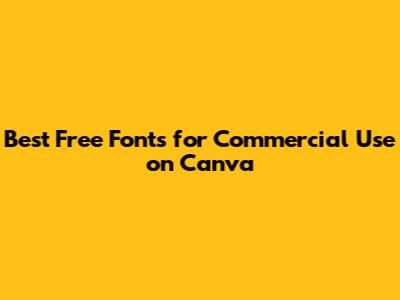
Best Free Fonts For Commercial Use On Canva
Choosing the right font is crucial for any design project, especially when it comes to commercial use. Using Canva, a popular online design platform, offers a plethora of fonts. However, not all of them are free for commercial purposes. This article will guide you through some of the best free fonts available on Canva that you can confidently use for your commercial projects.
Why Font Choice Matters
The font you choose plays a significant role in how your message is perceived. A professional and readable font can enhance your brand's credibility, while a poorly chosen font can make your design look amateurish. Consider your target audience and the overall tone of your project when selecting a font. A playful font might be perfect for a children's book, but it would be inappropriate for a corporate report. Typography is an art, and mastering it can greatly improve the impact of your designs. So, let's explore some fonts that not only look great but are also free for commercial use on Canva.
Top Free Fonts for Commercial Use on Canva
Canva offers a wide variety of fonts, but finding the ones that are both stylish and free for commercial use can take some time. Here are some of the best options, categorized for different design needs:
1. Headings and Titles
Montserrat
Montserrat is a versatile sans-serif font that works exceptionally well for headings and titles. Its clean and modern appearance makes it suitable for a wide range of projects, from websites to print materials. It's highly readable and comes in various weights, giving you plenty of flexibility in your designs. Montserrat is a go-to choice for many designers because of its simplicity and elegance.
• Why it works: Clean, modern, and highly readable.
• Best for: Headings, titles, and branding materials.
Oswald
Oswald is another excellent sans-serif font, designed with a slightly condensed style. This makes it perfect for headlines where space is limited. Its strong, bold characters command attention, ensuring your message stands out. Oswald is particularly effective for digital designs, such as website headers and social media graphics.
• Why it works: Bold, condensed, and attention-grabbing.
• Best for: Headlines, website headers, and social media graphics.
Bebas Neue
Bebas Neue is a popular choice for those seeking a tall and impactful sans-serif font. Its clean lines and modern feel make it ideal for posters, banners, and other large-format designs. While it's best used sparingly due to its strong presence, Bebas Neue can add a touch of sophistication to your projects.
• Why it works: Tall, clean, and modern.
• Best for: Posters, banners, and large-format designs.
2. Body Text
Open Sans
Open Sans is a classic sans-serif font known for its excellent readability. It's designed to be neutral and friendly, making it a great choice for body text in both digital and print formats. Its wide character spacing enhances readability, ensuring your audience can easily digest your content. Open Sans is a reliable and versatile option for any project requiring extensive text.
• Why it works: Highly readable, neutral, and friendly.
• Best for: Body text, website content, and print materials.
Lato
Lato is a sans-serif font with a warm and approachable feel. Its rounded terminals give it a softer appearance compared to more geometric fonts. Lato is highly legible and works well in a variety of sizes, making it suitable for both headings and body text. Its versatility and readability make it a popular choice among designers.
• Why it works: Warm, approachable, and highly legible.
• Best for: Body text, headings, and versatile design projects.
Raleway
Raleway is an elegant sans-serif font that exudes sophistication. Its thin and refined lines make it a great choice for projects that require a touch of class. While it can be used for headings, Raleway also works well for body text, especially in designs where aesthetics are paramount. This font can elevate the look of your project with its stylish appearance.
• Why it works: Elegant, sophisticated, and refined.
• Best for: Body text, headings, and aesthetic-focused designs.
3. Display Fonts
Lobster
Lobster is a bold and distinctive script font that adds a touch of vintage charm to your designs. Its flowing lines and unique character shapes make it perfect for logos, posters, and other display purposes. While it's not suitable for body text, Lobster can add a memorable touch to your branding and marketing materials.
• Why it works: Bold, distinctive, and vintage-inspired.
• Best for: Logos, posters, and display purposes.
Pacifico
Pacifico is a casual and friendly script font that evokes a sense of warmth and relaxation. Its rounded letterforms and flowing strokes make it ideal for projects targeting a younger audience or those seeking a playful touch. Pacifico is perfect for social media graphics, invitations, and other lighthearted designs.
• Why it works: Casual, friendly, and playful.
• Best for: Social media graphics, invitations, and lighthearted designs.
Abril Fatface
Abril Fatface is a display typeface that commands attention with its strong and bold letterforms. It’s perfect for headlines and titles that need to make a statement. Its contemporary design and high impact make it suitable for editorial design, posters, and branding materials where you want to grab the viewer's attention immediately.
• Why it works: Strong, bold, and attention-grabbing.
• Best for: Headlines, titles, and high-impact designs.
How to Use These Fonts Effectively
Now that you know some of the best free fonts for commercial use on Canva, here are a few tips on how to use them effectively:
1. Pair Fonts Wisely: Combining different fonts can add visual interest to your designs, but it's important to choose fonts that complement each other. A general rule of thumb is to pair a sans-serif font with a serif font. For example, you could use Montserrat for your headings and Open Sans for your body text.
2. Maintain Readability: While aesthetics are important, readability should always be your top priority. Choose fonts that are easy to read in both digital and print formats. Avoid using overly decorative fonts for body text, as they can strain the eyes.
3. Consider Your Brand: Your font choices should align with your brand's identity. If your brand is modern and minimalist, opt for clean sans-serif fonts. If your brand has a more traditional feel, consider using serif fonts.
4. Use Hierarchy: Use different font sizes and weights to create a visual hierarchy in your designs. This helps guide the viewer's eye and makes your content more digestible. Headings should be larger and bolder than body text.
5. Test Your Designs: Before finalizing your designs, always test them on different devices and in different formats. This ensures that your fonts look good and are readable in all contexts.
Checking Font Licenses on Canva
Canva makes it relatively easy to determine whether a font is free for commercial use. Here’s how you can check:
1. Select a Font: In the Canva editor, select the text you want to modify and click on the font dropdown menu.
2. Look for the Crown Icon: Fonts that are available only to Canva Pro subscribers are marked with a crown icon. If a font doesn't have this icon, it's generally free for all users, including commercial use. Keep in mind, this isn't a foolproof method, so always verify if possible.
3. Consult Canva's Terms: For added assurance, you can consult Canva's terms of service or licensing agreements. These documents provide detailed information about the usage rights for fonts and other design elements.
4. Check the Font Designer's Website: Sometimes, it's best to go straight to the source. Many font designers have their own websites where they specify the terms of use for their fonts. A quick Google search can often lead you to this information.
Additional Resources for Free Fonts
While Canva offers a great selection of free fonts, you can also find many other resources online. Here are a few websites where you can download free fonts for commercial use:
• Google Fonts: Google Fonts is a vast library of open-source fonts that are free for both personal and commercial use. These fonts are easy to integrate into your Canva designs by uploading them.
• Font Squirrel: Font Squirrel offers a curated collection of high-quality, free fonts for commercial use. They also provide a font identifier tool that can help you find similar fonts to those you like.
• DaFont: DaFont is a popular website with a large selection of fonts, including many that are free for commercial use. Be sure to check the license agreement for each font before using it in your projects.
Choosing the right font is a critical aspect of design, especially when your work is intended for commercial use. Canva provides a range of excellent free fonts that can help you create professional and impactful designs without breaking the bank. By understanding font licensing and following the tips outlined in this article, you can confidently select and use fonts that enhance your brand and message. So, go ahead and explore the world of typography and unleash your creativity with these fantastic free fonts on Canva!